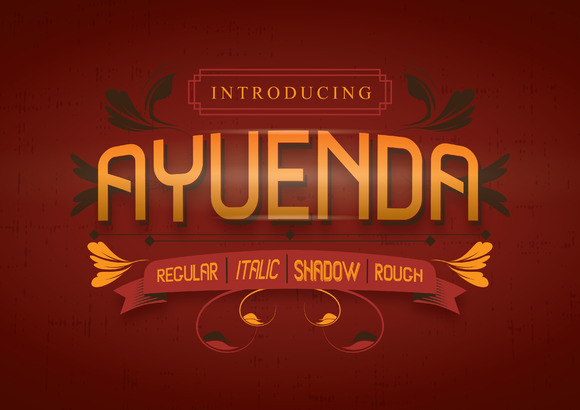
AYUENDA is a sans-serif typeface and was inspired by an Indonesian actress. It can be used for various purposes such as headings, logos, invitations, t-shirt designs, greeting cards, posters, labels, book covers, brochures, and much more!